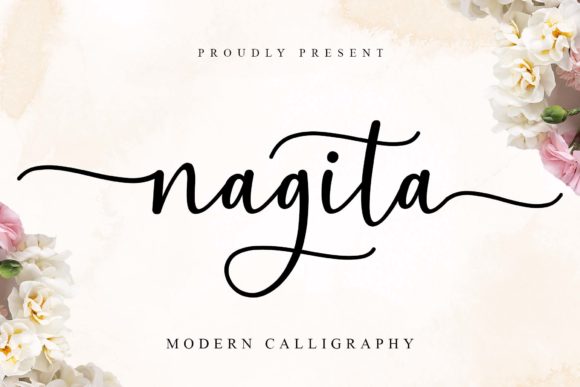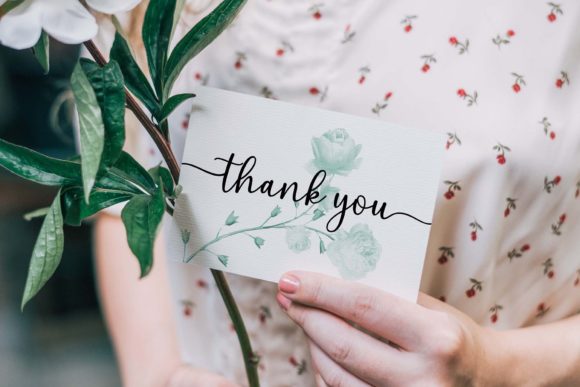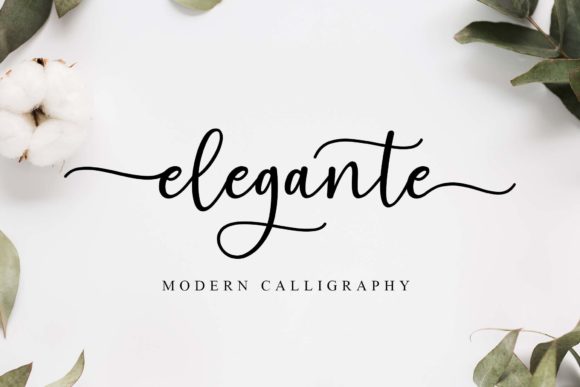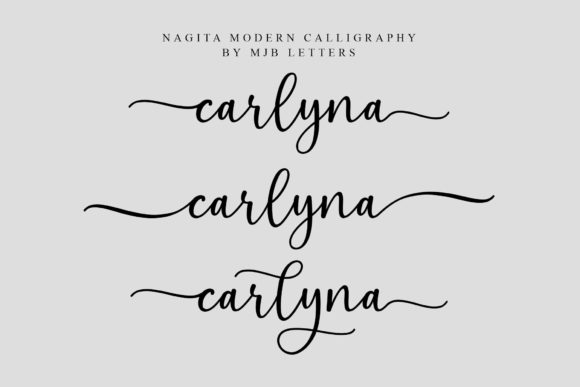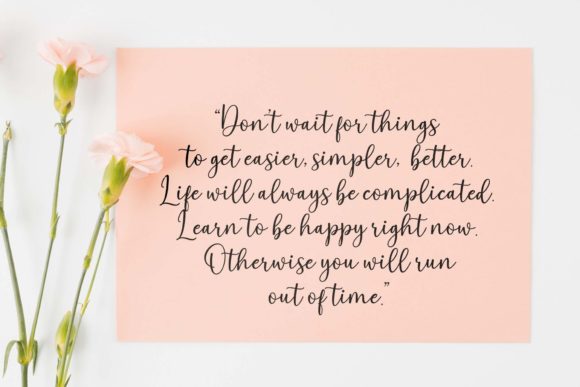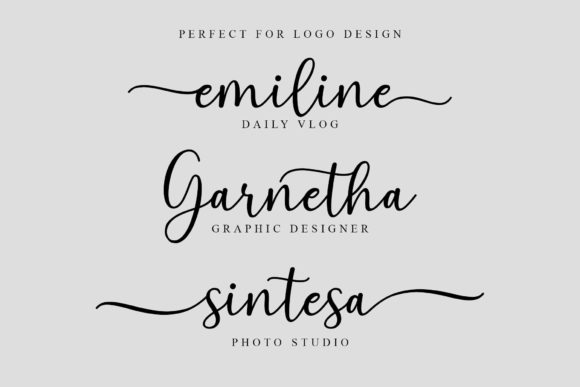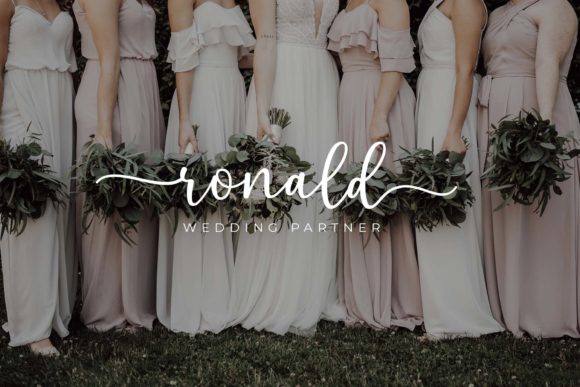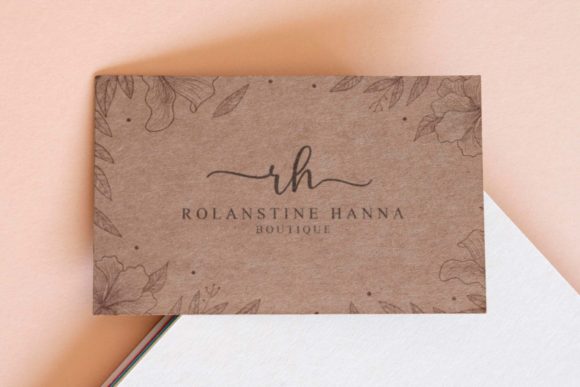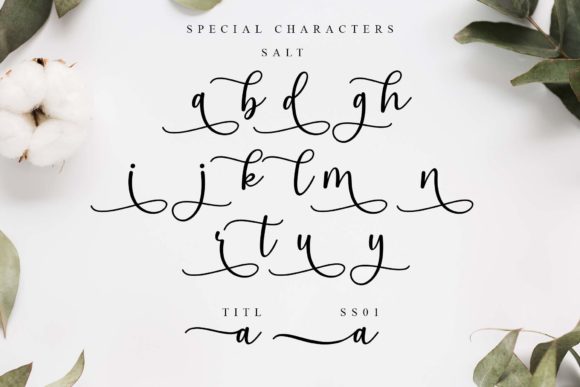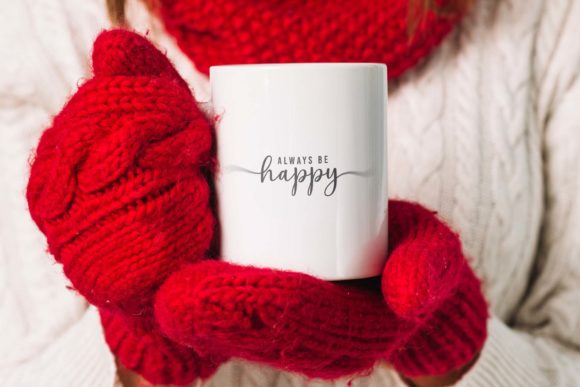
Nagita Font
Nagita is a cute and romantic font with beautiful beginning and ending swashes. It contains a lot of alternates and ligatures, and it is perfect font wedding invites, branding design, farmhouse design, silhouette design, website design, logo design, fashion design, and more. This font is PUA encoded which means you can access all glyphs and swashes with ease!